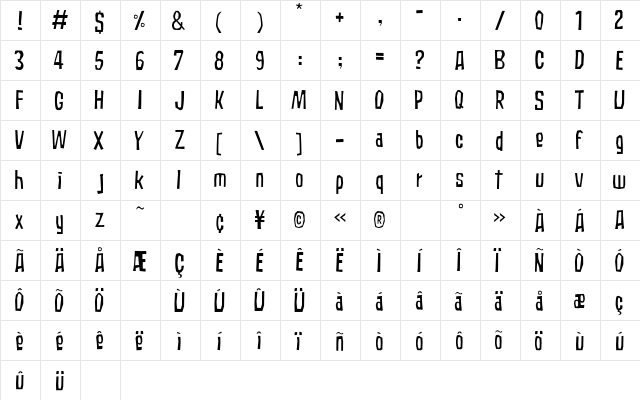
Subaccuz Light
Design Context for Subaccuz Typeface
Subaccuz offers clean, dependable letterforms without strong stylistic allegiance, making it a practical choice for designers who need flexibility. Its slender proportions lend an understated elegance to any composition.
Pro Tip: Pair Subaccuz with a font of contrasting weight or personality to build a more expressive typographic hierarchy.